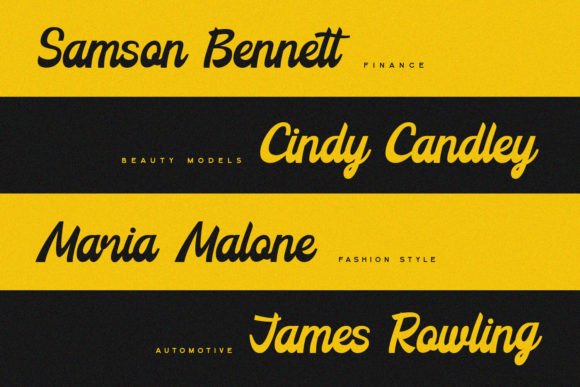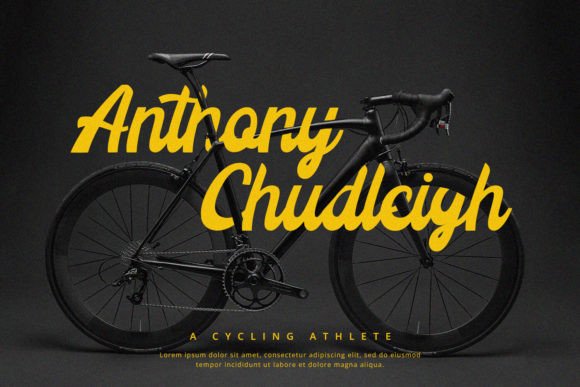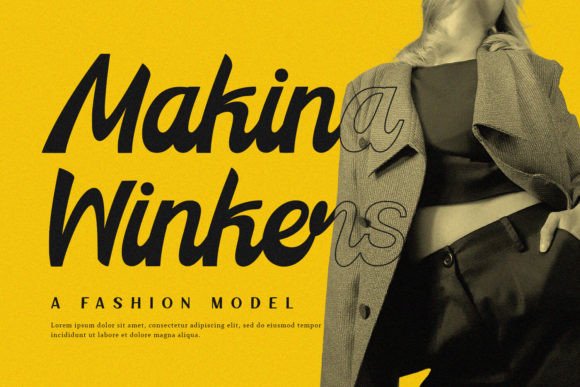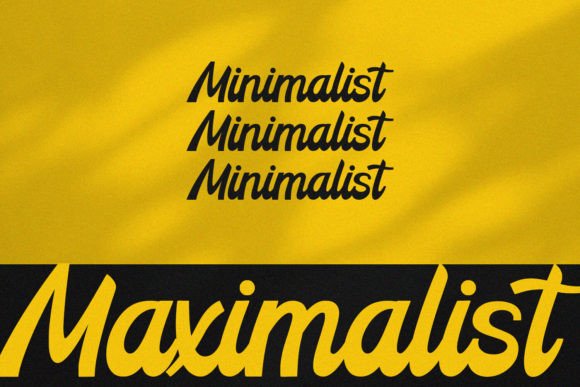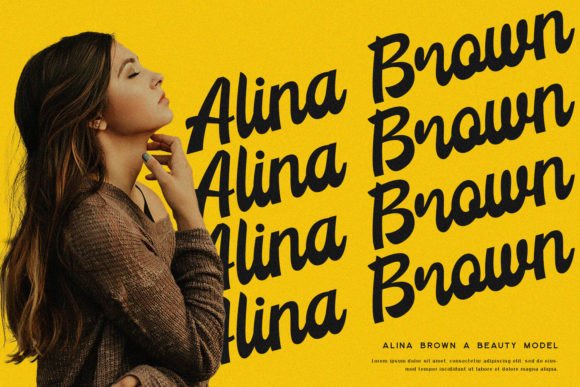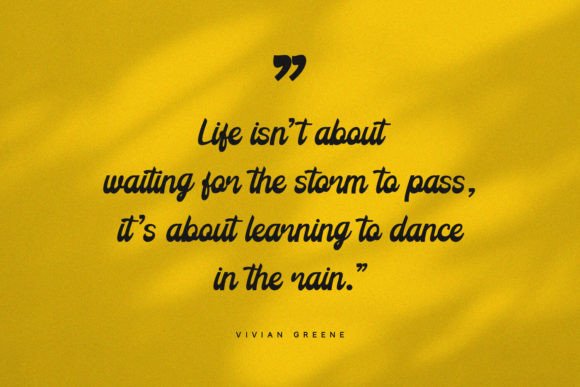
Introducing Grandeur Font: Elevate Your Designs with Elegance and Modernity
In the world of typography, fonts play a crucial role in conveying the tone and aesthetic of a design project. For designers and crafters seeking a bold script font that exudes elegance and modernity, look no further than Grandeur Font. This stunning typeface is perfectly suited for a wide range of applications, including magazines, packaging, posters, shopping bags, t-shirts, book covers, photography, special events, and other design projects.
The Grandeur Font Advantage
Grandeur Font boasts a unique blend of classic sophistication and contemporary flair, making it an excellent choice for designers who want to add a touch of luxury to their work. Its bold script style commands attention, while its elegant and modern feel ensures that it remains versatile and adaptable to various design contexts.
Key Features of Grandeur Font
- Bold Script Style: Grandeur Font features a bold script style that is perfect for making a statement in any design project.
- Elegant and Modern Feel: The font’s elegant and modern feel ensures that it remains relevant and fresh, even in the most contemporary design contexts.
- High Versatility: Grandeur Font can be used in a wide range of applications, from magazines and packaging to posters and special events.
- Excellent Legibility: Despite its bold style, Grandeur Font remains highly legible, making it perfect for use in both print and digital media.
Design Applications for Grandeur Font
Grandeur Font is an incredibly versatile typeface that can be used in a variety of design applications, including:
- Magazines: Add a touch of elegance to your magazine layouts with Grandeur Font, perfect for headlines, titles, and pull-quotes.
- Packaging: Make your product packaging stand out with Grandeur Font, ideal for labels, tags, and branding materials.
- Posters: Create eye-catching posters with Grandeur Font, perfect for advertising, promotion, and event marketing.
- Shopping Bags: Elevate your brand’s shopping bags with Grandeur Font, adding a touch of sophistication to your packaging.
- T-Shirts: Design stylish and modern t-shirts with Grandeur Font, perfect for fashion brands and apparel designers.
- Book Covers: Create stunning book covers with Grandeur Font, ideal for fiction, non-fiction, and self-publishing projects.
- Photography: Add a touch of elegance to your photography with Grandeur Font, perfect for captions, titles, and watermarks.
- Special Events: Make your special events, such as weddings, galas, and conferences, unforgettable with Grandeur Font, ideal for invitations, programs, and signage.
Tips for Using Grandeur Font
To get the most out of Grandeur Font, consider the following tips:
- Use it as a Headline Font: Grandeur Font is perfect for use as a headline font, adding a touch of elegance and sophistication to your design.
- Pair it with a Simple Font: Pair Grandeur Font with a simple, clean font to create visual contrast and add depth to your design.
- Experiment with Colors: Grandeur Font looks stunning in a range of colors, from metallic and neon to pastel and bold hues.
- Pay Attention to Kerning: Pay attention to kerning and letter spacing to ensure that your text remains legible and visually appealing.
Grandeur Font is a stunning bold script font that offers a unique blend of elegance and modernity. Its versatility, legibility, and stylish design make it perfect for a wide range of applications, from magazines and packaging to posters and special events. Whether you’re a designer or crafter, Grandeur Font is an excellent addition to your typography toolkit.